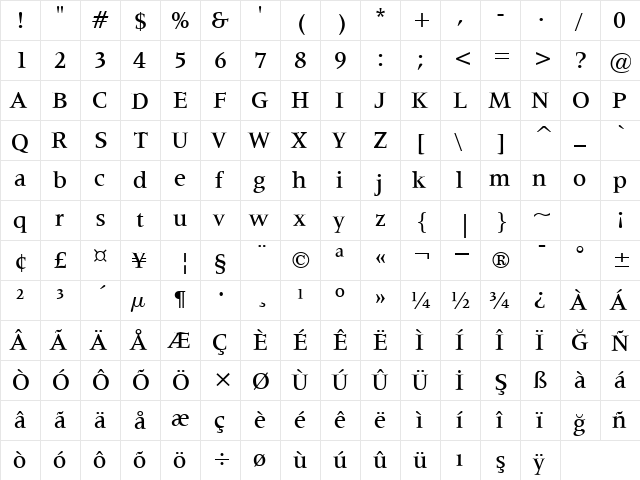
00427 Regular
Design Context for 00427 Typeface
00427 is a composed and adaptable typeface that performs quietly and consistently across a wide range of design contexts.